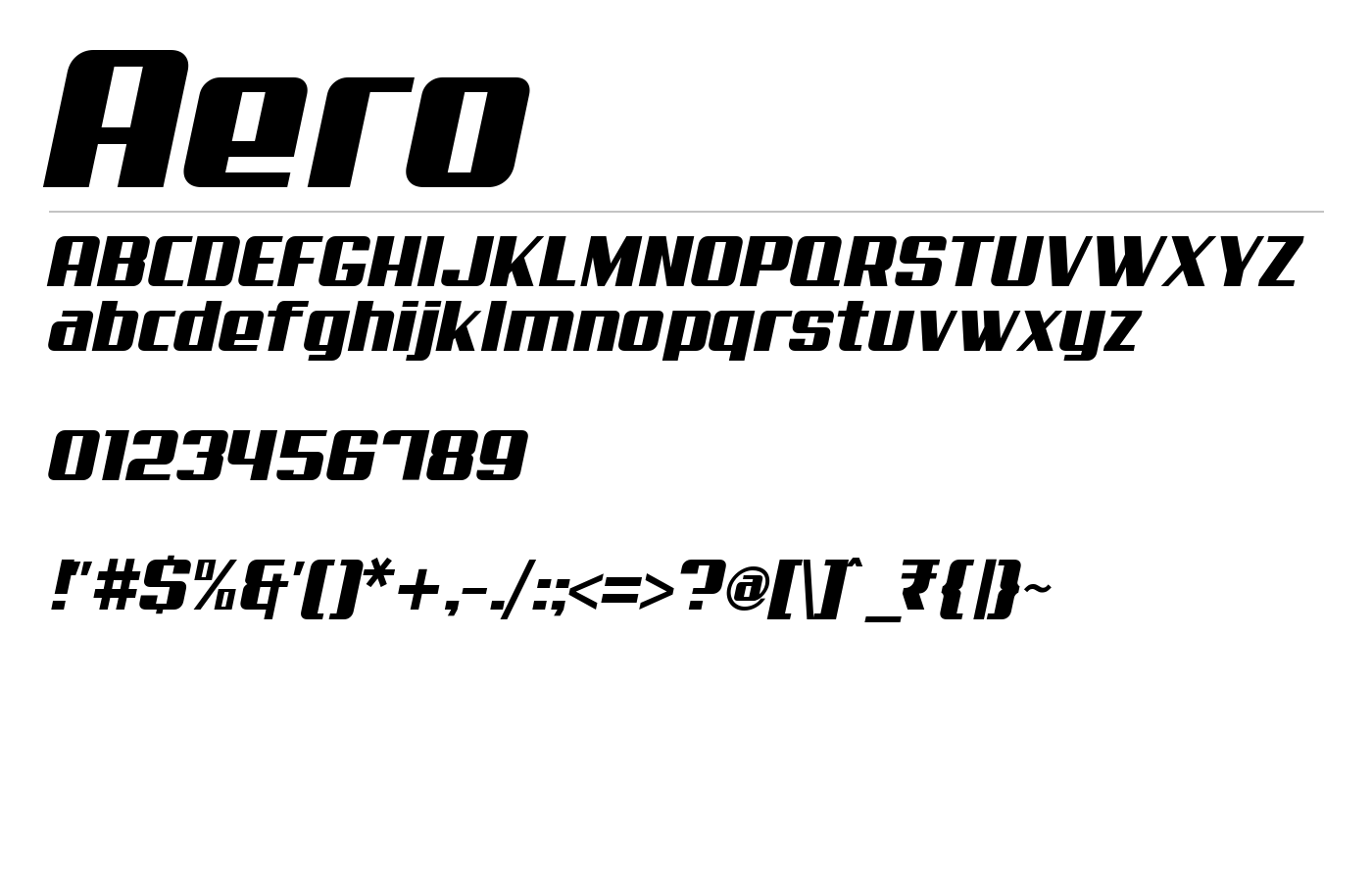
Aero is a bold, condensed sans serif font with a dynamic, italicized style that conveys speed and modernity. Its high contrast, sharp angles, and geometric forms make it ideal for sporty, tech, and futuristic branding or headlines where an energetic and impactful presence is desired. This font works well in logos, advertising, and posters that need a strong, forward-moving visual statement.
Aero Font
About Aero Font
| Font family | Aero Font |
| Designer | Nirmal Biswas |
| Font subfamily | Medium, Italic |